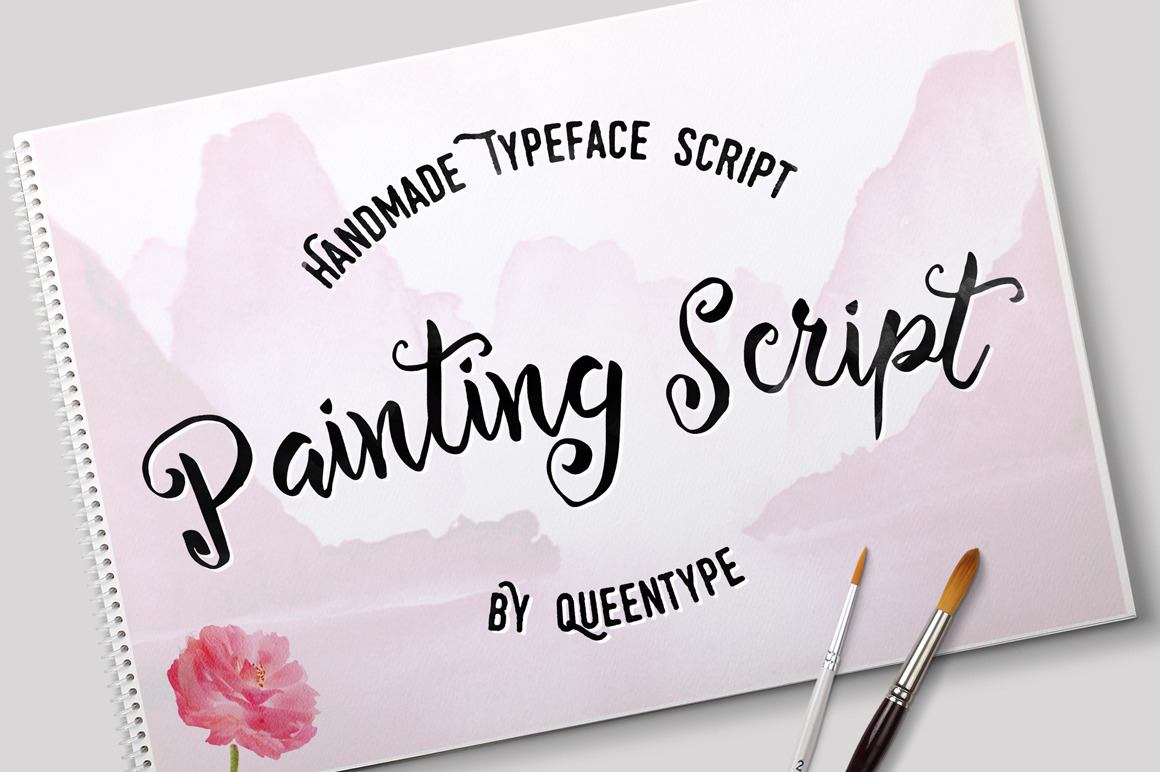
Painting Script + Bonus
Painting Script Font + Bonus is perfect for artistic branding, creative studios, art gallery exhibitions, painter portfolios, craft workshops, handmade product labels, artistic social media graphics, creative business cards, art supply packaging, studio signage, artistic wedding invitations, and expressive design projects.
What makes Painting Script + Bonus exciting is its artistic authenticity that captures the spontaneous beauty of wet paint strokes through expressive letterforms that seem to flow directly from an artist's brush. This captivating typeface collection embodies the essence of creative freedom and artistic expression, combining the organic flow of painterly movements with contemporary functionality that resonates with audiences seeking genuine artistry and creative authenticity. The font's natural character and paint-like variations create immediate emotional connection while the bonus elements provide additional creative possibilities for comprehensive artistic branding. Its expressive personality makes it perfect for brands that want to communicate creativity, passion, and the transformative power of artistic expression.
The Painting Script Font + Bonus collection includes the main script font with natural variations, plus bonus decorative elements, artistic flourishes, and complementary design assets. The character set incorporates paint-inspired alternates, flowing ligatures, and creative swashes that enhance the font's artistic character and provide designers with complete artistic typography solutions for authentic brand expression.
Whether you're creating artistic brand identities, designing creative marketing materials, or developing expressive communications, Painting Script + Bonus Free Download provides the comprehensive artistic toolkit your creative projects require. This premium font collection excels in applications where artistic authenticity and creative expression are crucial for brand differentiation and emotional engagement with art-loving audiences. The script's painterly qualities work beautifully across packaging, signage, and digital applications, making it an essential tool for designers creating memorable artistic brand experiences. Art studios and creative entrepreneurs choose this font collection for its ability to communicate genuine artistic craftsmanship while maintaining professional appeal and commercial viability. The comprehensive character support includes international symbols, expanding its versatility for global artistic applications and multilingual creative communications. Professional designers appreciate the complete creative package with bonus elements that enhance artistic expression and functional flexibility. When you incorporate this exceptional script collection into your creative communications, you're selecting a complete typography solution that celebrates artistic heritage and creative passion, ensuring your brand connects with audiences seeking authentic artistic experiences and handcrafted quality in today's digital world while maintaining the artistic credibility essential for success in creative industries and artistic markets that value individual expression and genuine creative authenticity.